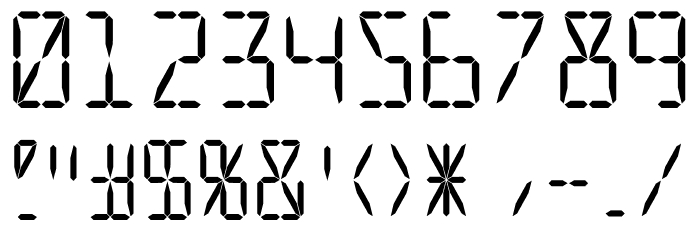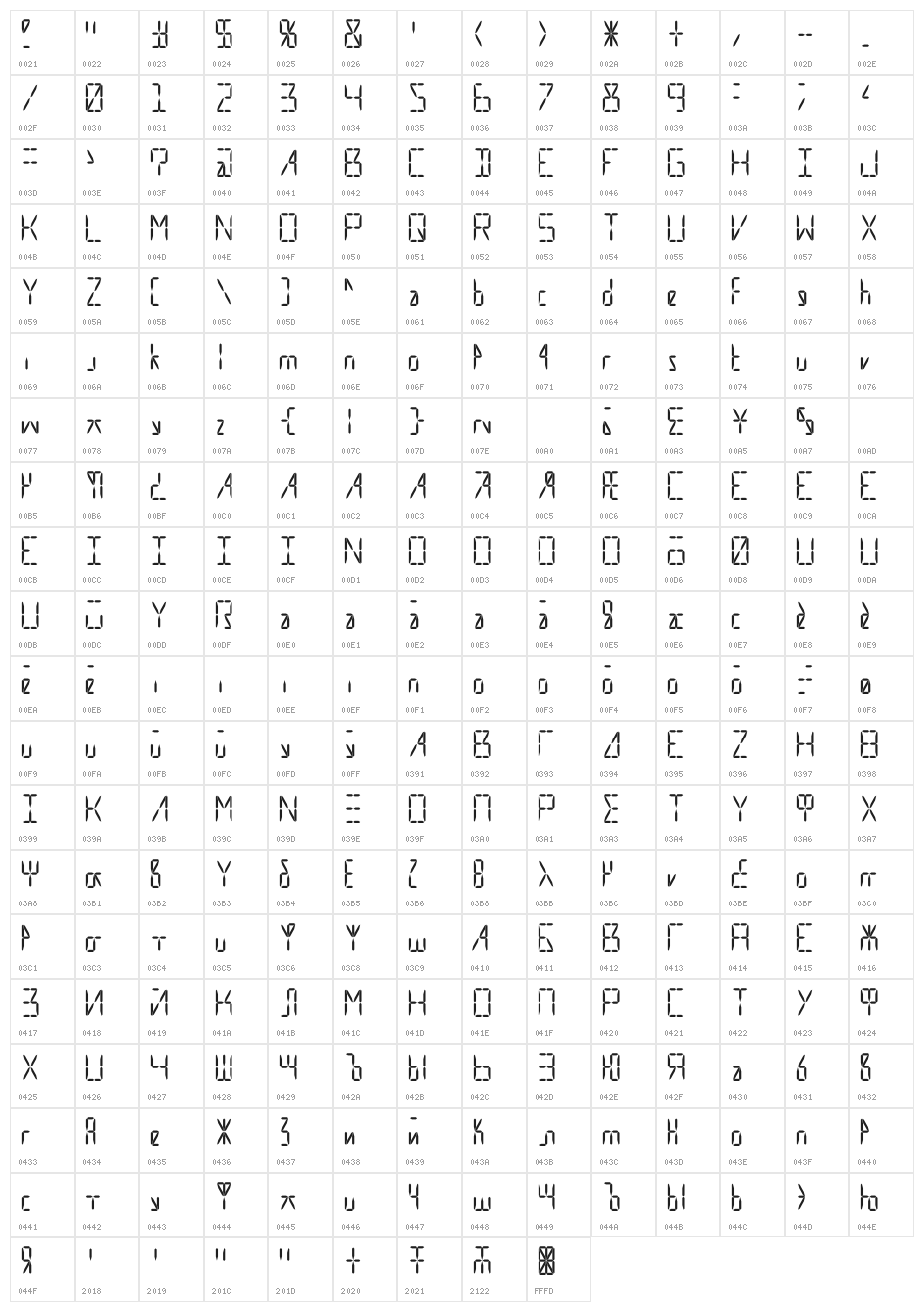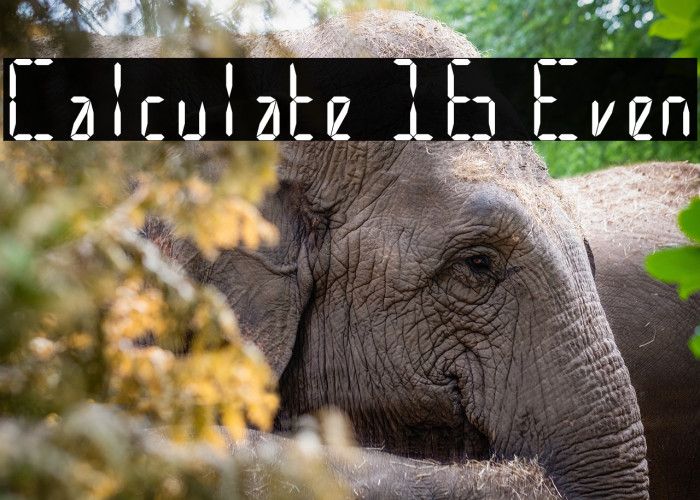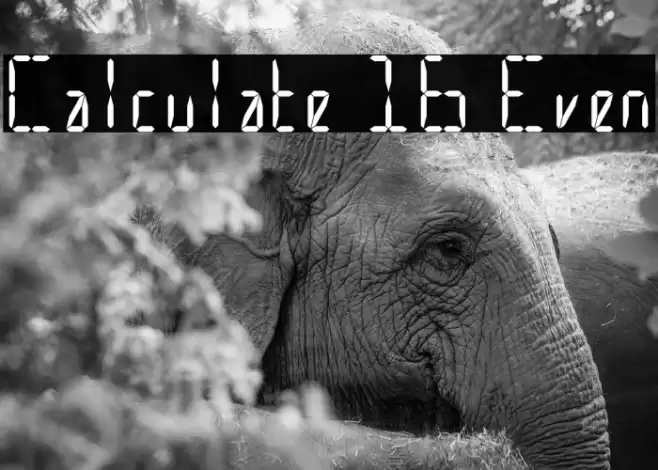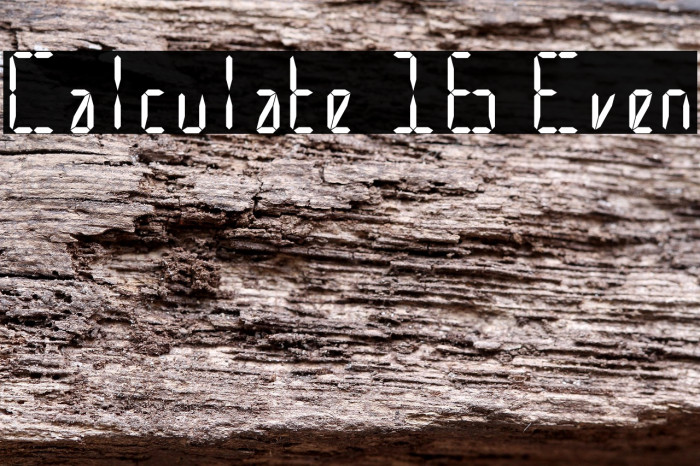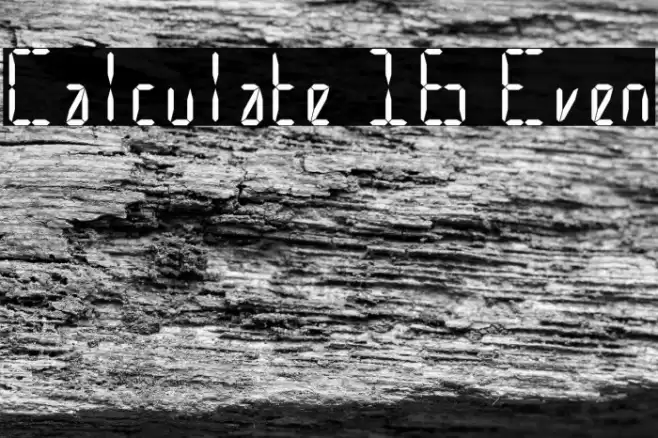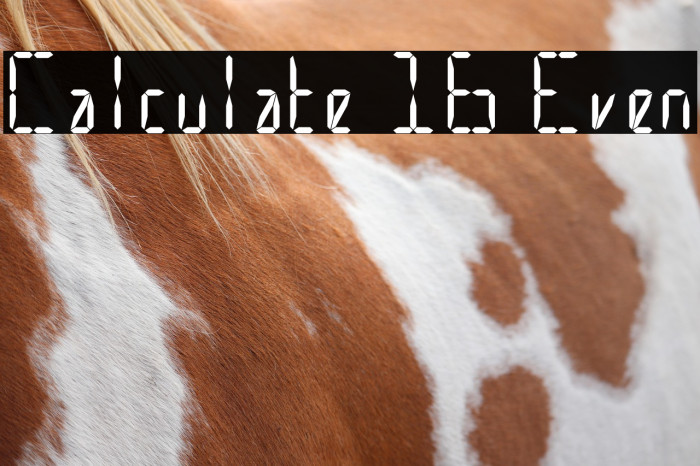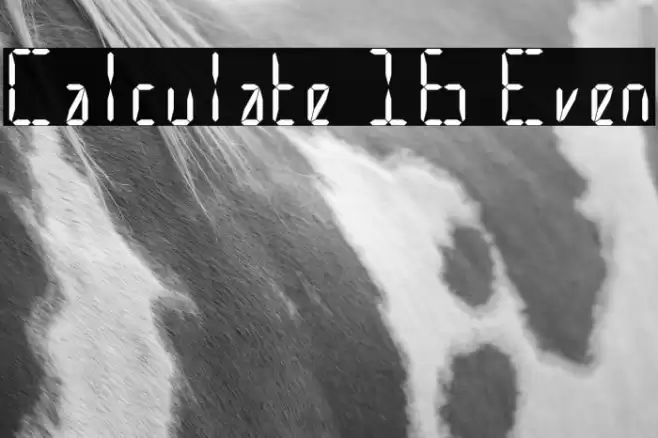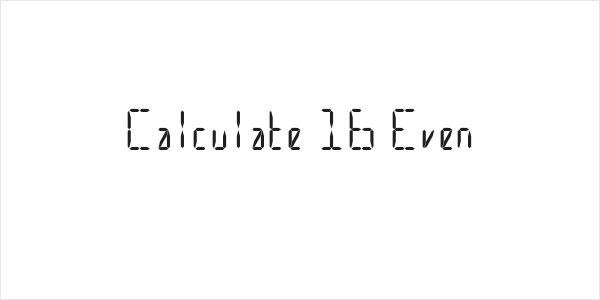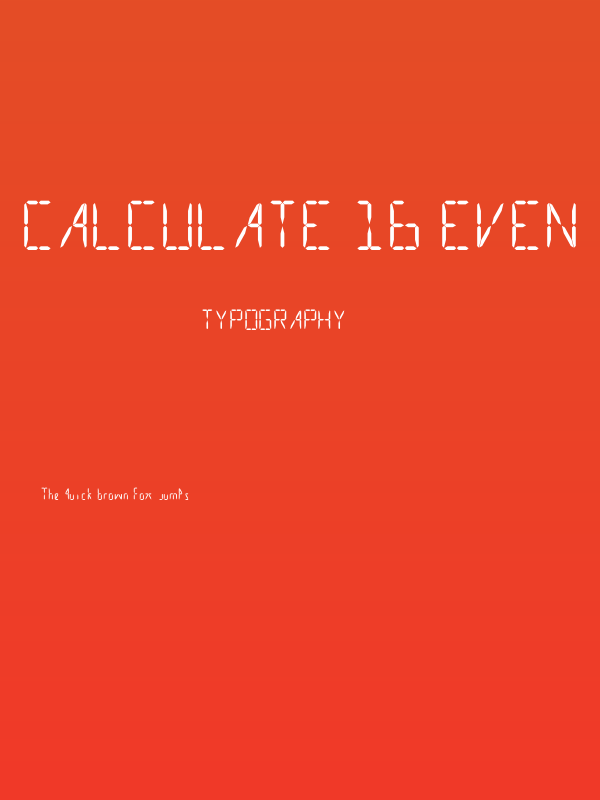
Calculate 16 Even Font
Calculate 16 Even Description
This font features a unique, segmented design reminiscent of digital displays or LED screens. Each character is constructed from a series of straight lines and angles, creating a geometric and futuristic appearance. The uppercase and lowercase letters maintain a consistent style, with sharp edges and a mechanical feel. Numbers and special characters follow the same segmented pattern, ensuring uniformity across the entire set. The font's distinct style makes it highly recognizable and suitable for digital-themed projects.
| Use Case | Headlines, Logos, Digital displays |
| Proposed Projects | Ideal for digital interfaces, tech-themed posters, futuristic branding, and electronic device displays. |